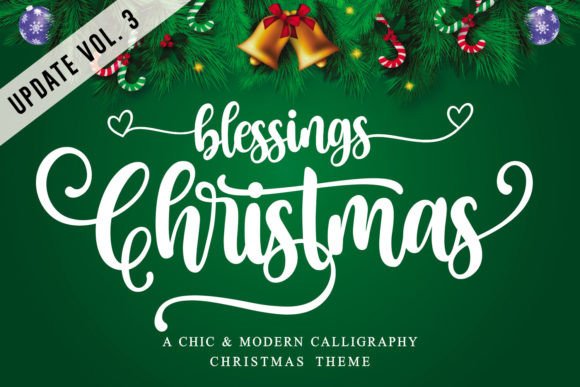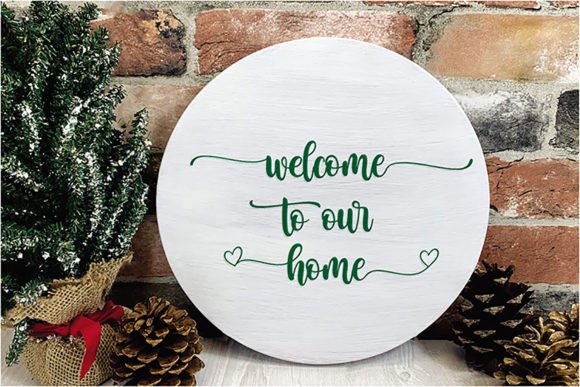
Christmas Blessings Font
Embrace the magic of the holiday season with the “Christmas Blessings” font, a stunning script handwritten typeface that perfectly captures the warmth and joy of Christmas, New Year, and winter festivities. With its graceful flow and elegant design, this font is an ideal choice for themes such as Christmas, New Year, winter, Easter, Cricut projects, embroidery, Thanksgiving, crafting, lettering, and SVG creations.
Each character in the “Christmas Blessings” font features beautiful beginning and ending washtails, adding a touch of sophistication to your designs. The font also comes with a variety of alternate characters, allowing you to create custom and unique text combinations that will elevate any project.
Whether you’re designing holiday cards, festive invitations, seasonal decorations, or personalized gifts, the “Christmas Blessings” font will bring a timeless charm and festive spirit to your creations. Its versatility makes it a must-have for any holiday-themed project, from traditional Christmas crafts to modern winter designs.
Get ready to make your holiday designs truly shine with the “Christmas Blessings” font. Let your creativity soar as you explore the endless possibilities this font offers, whether you’re crafting, embroidering, or creating digital projects. The smooth lines and stunning glyphs will ensure your work stands out and leaves a lasting impression.